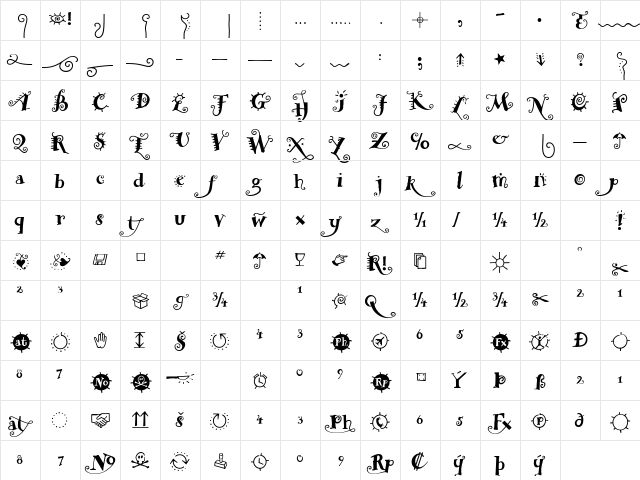
RemedyDoubleExtras Regular Font Preview
RemedyDoubleExtras Regular
RemedyDoubleExtras Regular Font Details
Design Context for RemedyDoubleExtras Typeface
RemedyDoubleExtras is a composed and adaptable typeface that performs quietly and consistently across a wide range of design contexts.